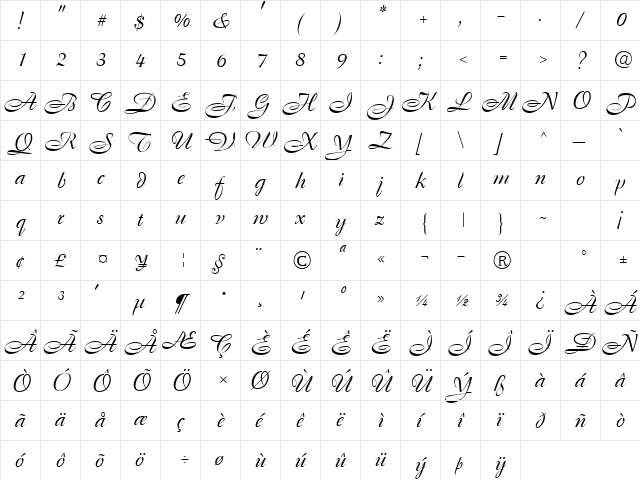
Cassandra Regular
| Foundry | Gophmann Alexandra Leopoldovna |
| Designer | Gophmann A.L. |
Design Context for Cassandra Typeface
Cassandra is a composed and adaptable typeface that performs quietly and consistently across a wide range of design contexts.